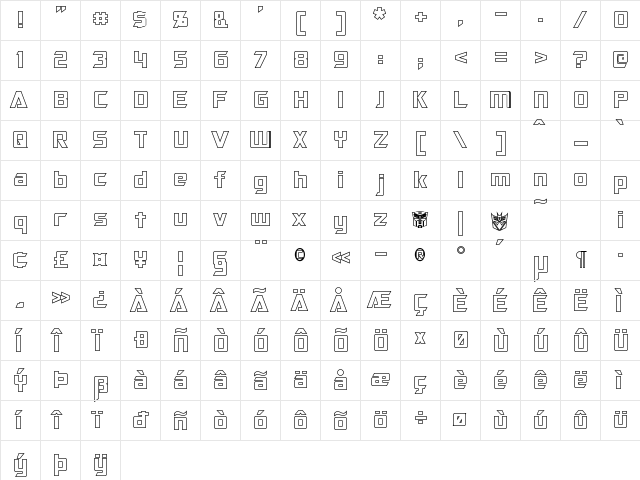
Optimus Hollow Regular
| Foundry | Neale Davidson |
| Designer | Neale Davidson |
Design Context for Optimus Hollow Typeface
Optimus Hollow is a composed and adaptable typeface that performs quietly and consistently across a wide range of design contexts.